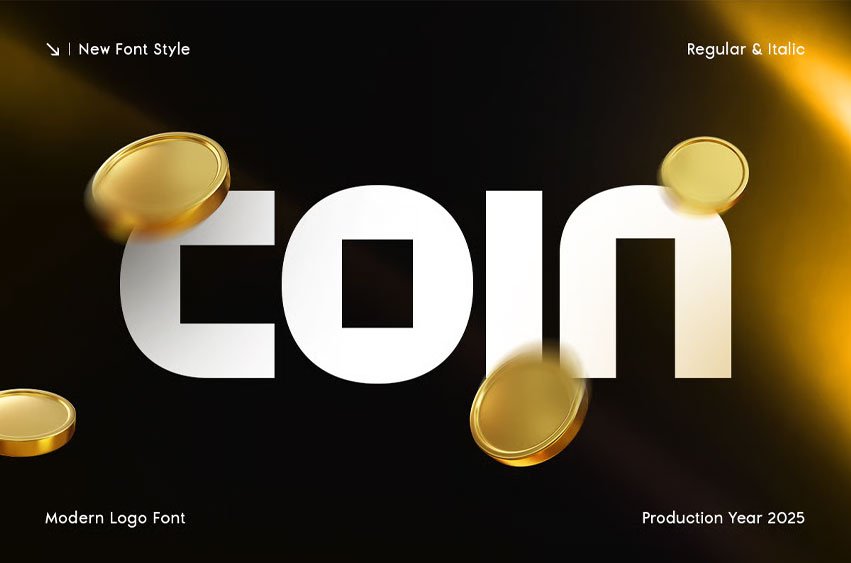
Coin Font Modern Logo Font is a clean and contemporary display typeface crafted to deliver clarity, balance, and a professional brand presence. Inspired by modern branding principles, minimalist typography, and timeless logo aesthetics, Coin is designed for brands that value simplicity with strong visual impact.
With its refined letterforms, balanced proportions, and modern structure, Coin creates logos and headlines that feel confident, elegant, and easy to recognize. This font is carefully designed to support modern branding systems across print and digital platforms.
Whether you are creating a modern logo, building a clean brand identity, or designing professional visual assets, Coin helps your design communicate simplicity, trust, and modern elegance.